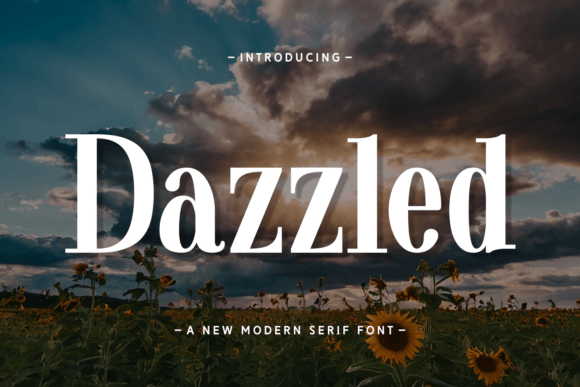
Dazzled Font: Elevate Your Design with Elegance and Readability
In the world of typography, fonts play a crucial role in conveying messages, evoking emotions, and creating a lasting impression. Among the numerous fonts available, Dazzled Font stands out as a modern serif font that seamlessly combines elegance and readability. Its clean lines, stylish curves, and contemporary feel make it an excellent choice for a wide range of design projects. In this article, we’ll delve into the features, benefits, and applications of Dazzled Font, exploring why it’s a great addition to your typographic arsenal.
The Characteristics of Dazzled Font
Dazzled Font is a modern serif font that boasts a unique blend of classic and contemporary elements. Its clean lines and stylish curves create a sophisticated look that’s both elegant and refined. The font’s serif design adds a touch of tradition, while its modern twist ensures it remains fresh and relevant. This harmonious balance makes Dazzled Font suitable for various design applications, from headlines and titles to body text and captions.
Elegance and Readability: The Perfect Balance
One of the standout features of Dazzled Font is its exceptional readability. The font’s carefully crafted letterforms ensure that text remains clear and legible, even at smaller font sizes. This makes it an excellent choice for body text, articles, and other written content. At the same time, Dazzled Font’s elegant design makes it perfect for headlines, titles, and other display text. The font’s versatility allows designers to use it across various design projects, from editorials and magazines to websites and branding materials.
Contemporary Feel with a Classic Touch
Dazzled Font’s modern design ensures it remains relevant in today’s fast-paced digital landscape. Its sleek lines, refined curves, and carefully balanced letterforms create a fresh, contemporary feel that’s perfect for modern designs. However, the font’s classic serif design prevents it from feeling too trendy or over-the-top. This blend of modernity and classic elegance makes Dazzled Font an excellent choice for designers seeking a font that will stand the test of time.
Why Choose Dazzled Font for Your Design Project?
With so many fonts available, why should you choose Dazzled Font for your design project? Here are just a few compelling reasons:
- Versatility: Dazzled Font is suitable for a wide range of design applications, from print materials to digital content.
- Elegance: The font’s refined design adds a touch of sophistication to any design project.
- Readability: Dazzled Font’s exceptional readability ensures that your text remains clear and legible.
- Contemporaneity: The font’s modern design ensures it remains fresh and relevant in today’s digital landscape.
Applications of Dazzled Font
Dazzled Font’s versatility makes it suitable for various design applications, including:
- Editorials and Magazines: Use Dazzled Font for headlines, titles, and body text to create a sophisticated and engaging reading experience.
- Websites and Blogs: The font’s readability and elegance make it perfect for website content, from homepage headlines to blog posts.
- Branding and Identity: Dazzled Font’s modern design and classic touch make it an excellent choice for logos, business cards, and other branding materials.
- Advertising and Marketing: Use Dazzled Font to create eye-catching headlines and titles for advertising campaigns, brochures, and other marketing materials.
Tips for Using Dazzled Font Effectively
To get the most out of Dazzled Font, here are a few tips to keep in mind:
- Mix and Match: Combine Dazzled Font with other fonts to create visual interest and add depth to your design.
- Pay Attention to Font Size: Adjust font sizes to create a clear hierarchy of information and guide the reader’s eye.
- Experiment with Colors: Try out different color schemes to find the perfect combination that complements your design and enhances the font’s elegance.
In conclusion, Dazzled Font is a modern serif font that offers a unique blend of elegance, readability, and contemporaneity. Its versatility, sophistication, and exceptional readability make it an excellent choice for a wide range of design projects. Whether you’re working on editorials, websites, branding materials, or advertising campaigns, Dazzled Font is sure to elevate your design and leave a lasting impression.